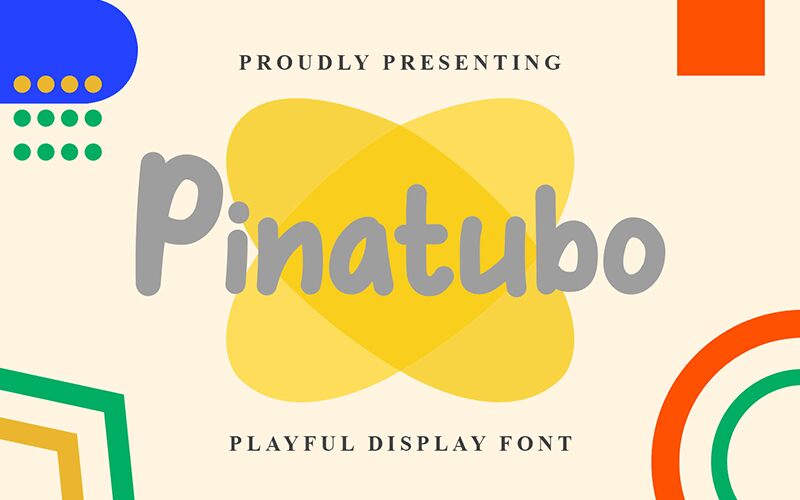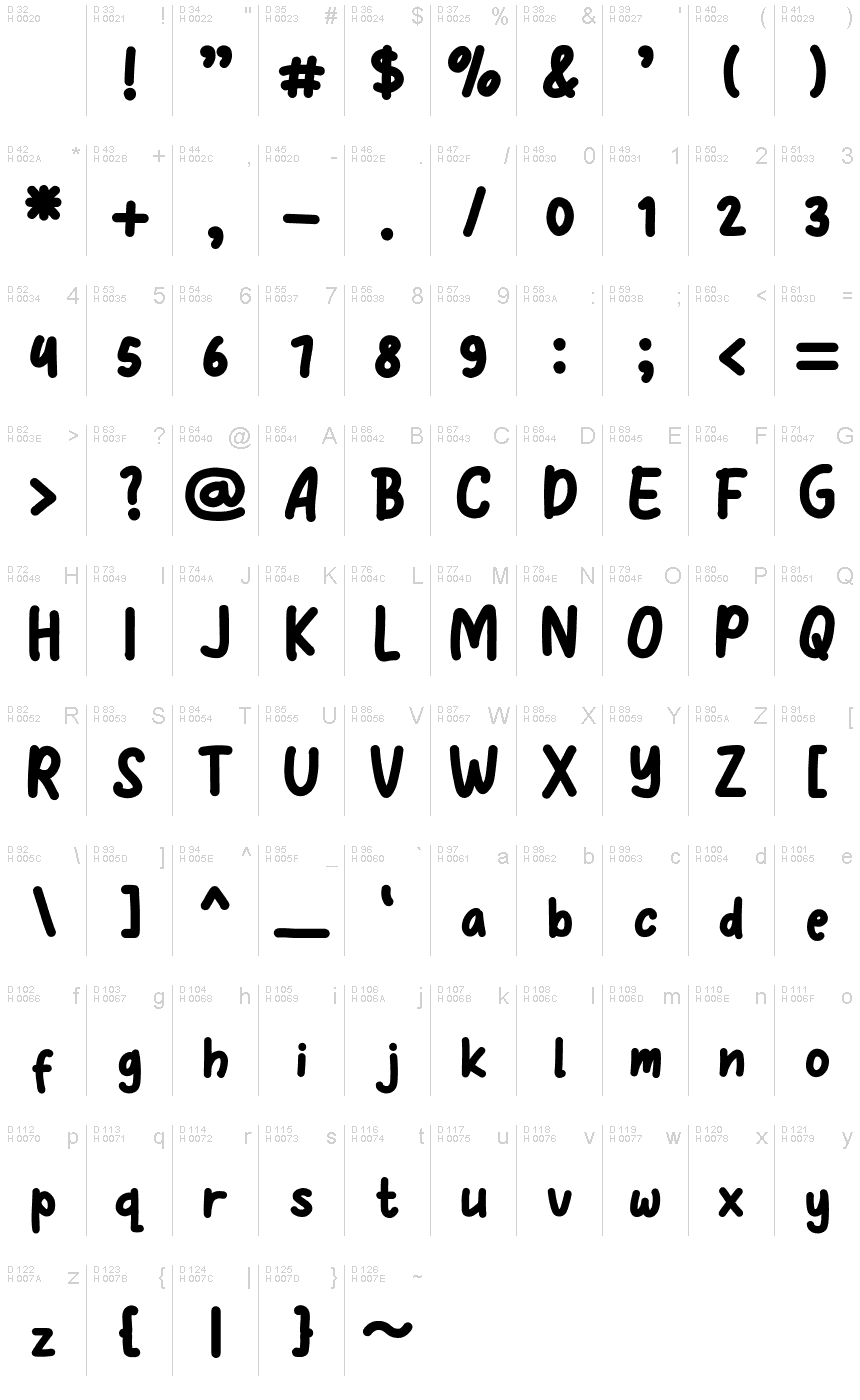
Pinatubo
Pinatubo, designed by Denny Sutanto, is a vibrant and lively display font that brings a playful touch to any project. Its bold weight and cartoon style make it perfect for adding a fun element to crafting projects, such as scrapbooking and card making. The font's unique design also lends itself well to creating eye-catching SVG designs for websites and social media graphics.
With its relaxed and calming vibe, Pinatubo is ideal for branding projects that aim to convey a sense of tranquility. Use it to create logos for wellness centers, yoga studios, or natural skincare brands. The font's versatility extends beyond digital applications – it can be used to create stickers for planners and bullet journals, adding a whimsical touch to organization.